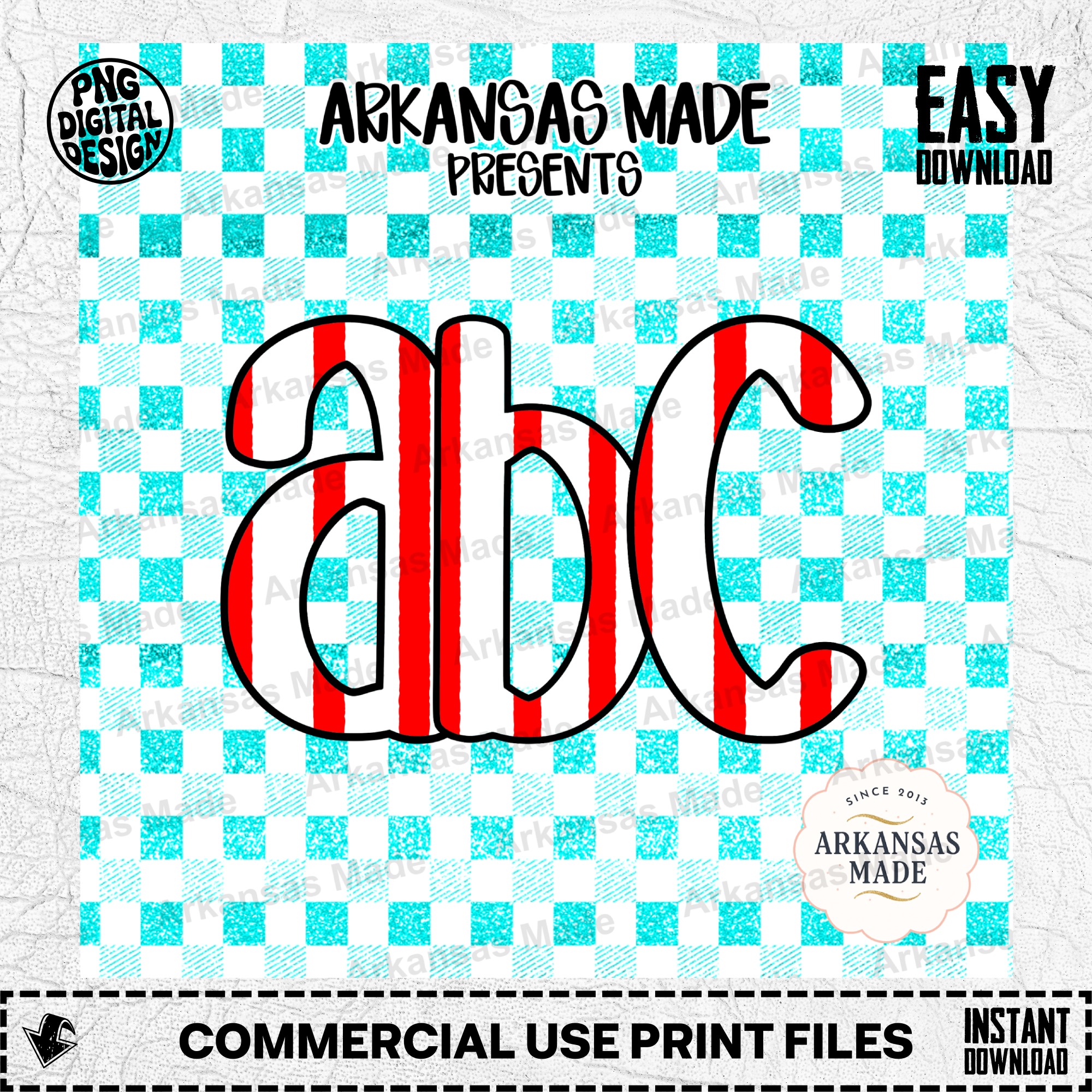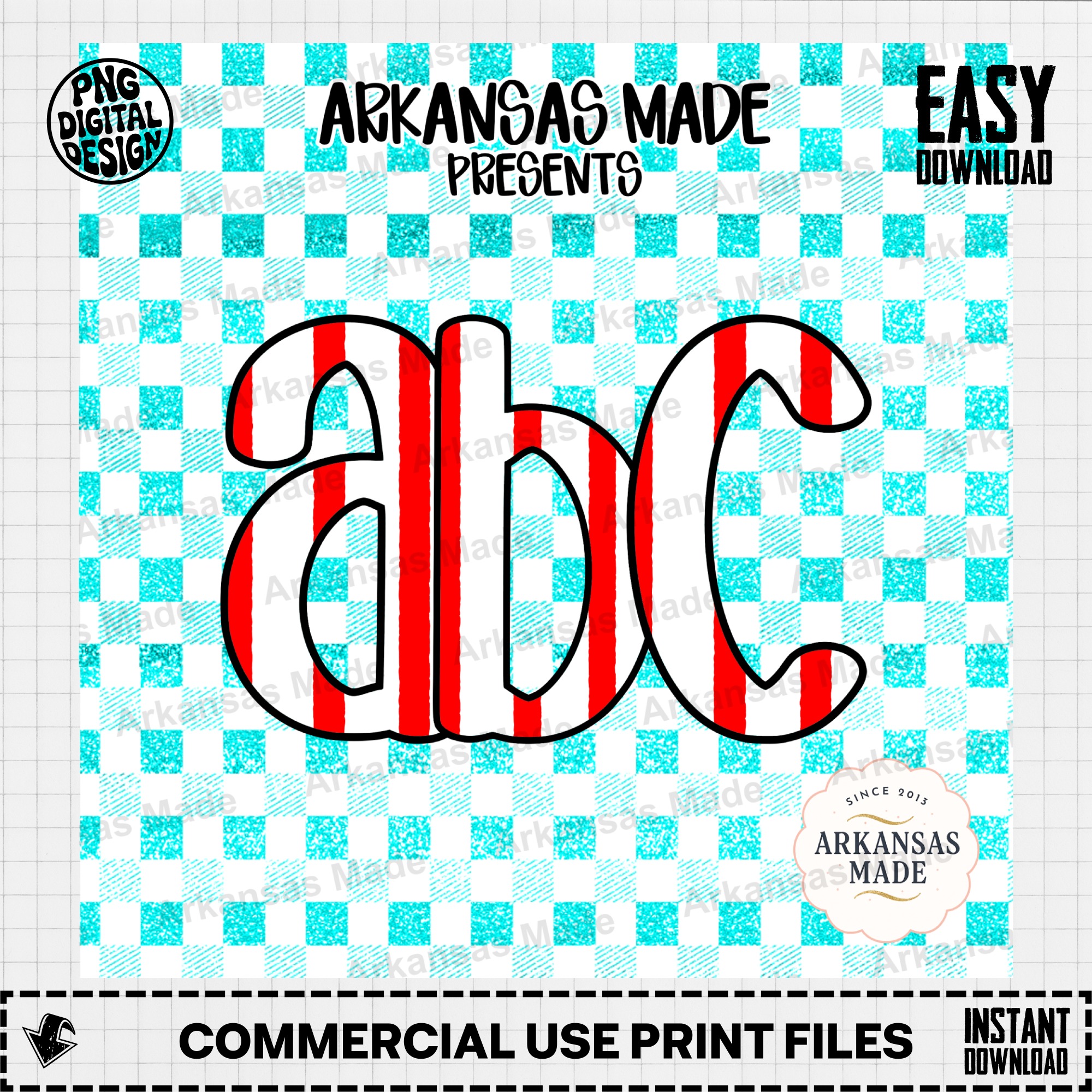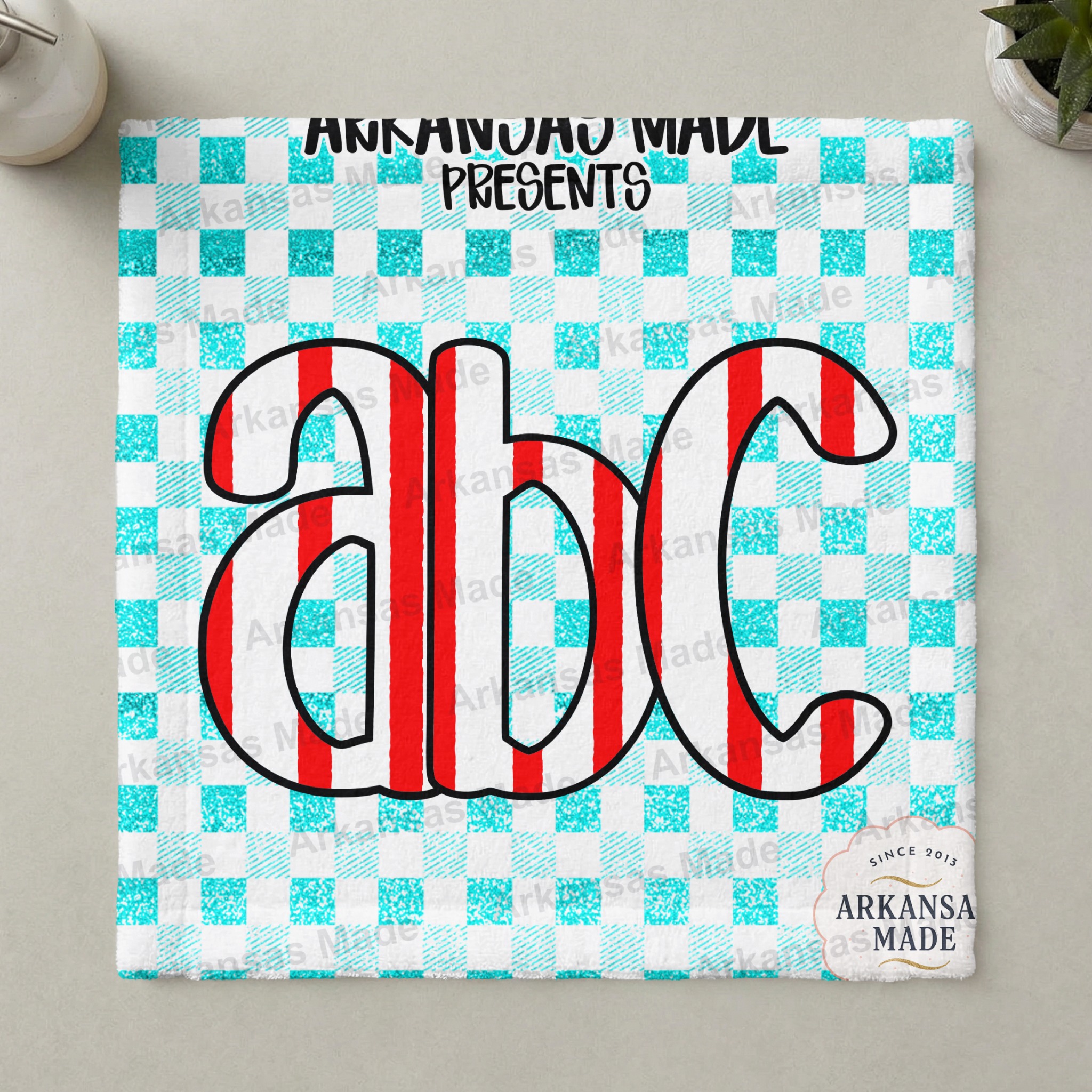
Elevate your creative projects with this vibrant Red Stripe Alphabet Digital Download Alpha Set, featuring bold preppy striped letters in SVG and PNG formats. Perfect for crafters, teachers, and DIY enthusiasts, this varsity font clipart brings a classic, energetic feel to any design. Use it for personalized gifts, school projects, patriotic decorations, or unique sublimation creations. Instantly enhance t-shirts, mugs, signs, and more with these eye-catching graphics.